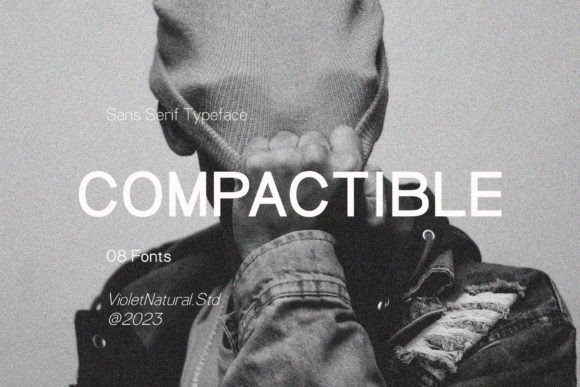
Introducing Compactible, an awe-inspiring sans serif font family that spells elegance and grace. Crafted by the ingenious Hello Simbol, this typeface embodies the essence of simplicity and clarity. Its unparalleled readability and distinctively refined aesthetics make Compactible the perfect font for your most esteemed undertakings.
With its clean and crisp letterforms, Compactible effortlessly elevates your designs, lending them a touch of sophistication and poise. It's the perfect choice for corporate branding, editorial layouts, and website designs where impact and professionalism are paramount.
Unleash your creative potential and create designs that resonate with your audience. Compactible's versatility knows no bounds, adapting seamlessly to a wide range of applications. From striking headlines that capture attention to sprawling text that invites deep reading, this font delivers a flawless performance.
Experience the beauty of Compactible in its crisp display on retina screens. Every curve and line is rendered with unparalleled sharpness, ensuring your designs look stunning on any digital platform.
Stand out from the crowd with Compactible, the font that embodies sophistication and elegance. Its modern and polished appearance will leave a lasting impression on your audience, propelling your brand or project to new heights of success.